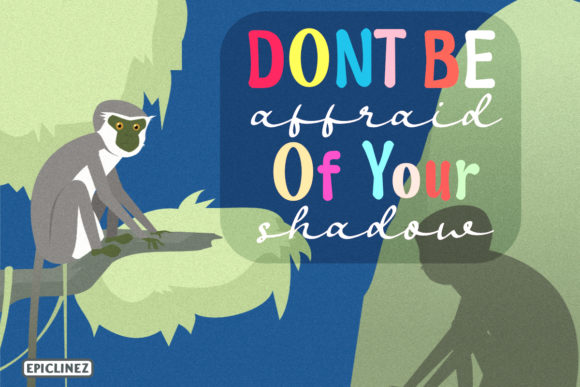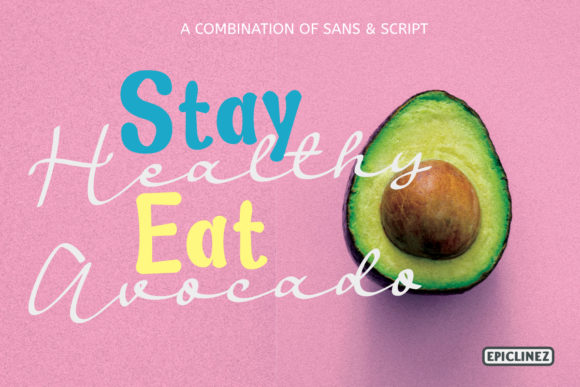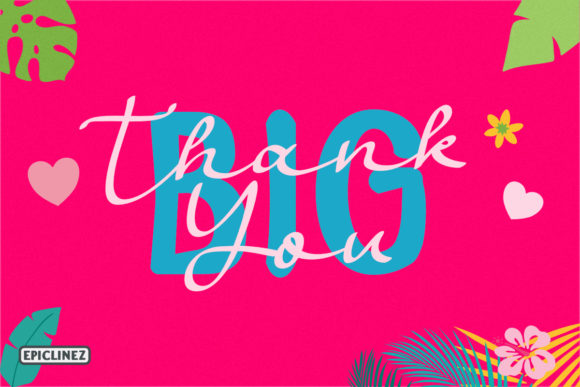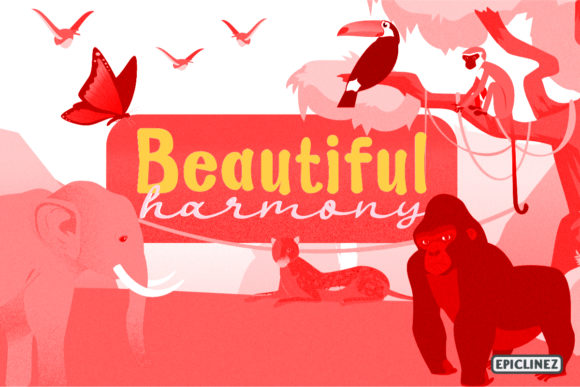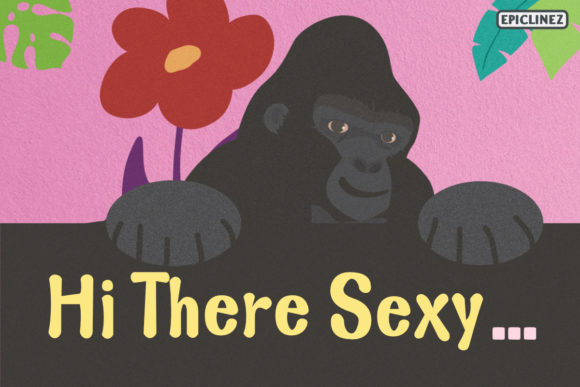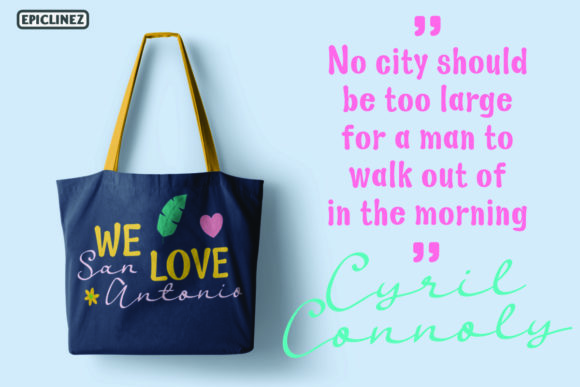
Introduction to Pink Avocado Font
Pink Avocado is a playful font duo.
The sans is comically bold and playful and the script adds a special touch to any design projects This font can be used in a wide variety of applications from logos, magazine covers, headlines, t-shirts to anything you can think of.
Key Features of Pink Avocado Font
Why Choose Pink Avocado Font?